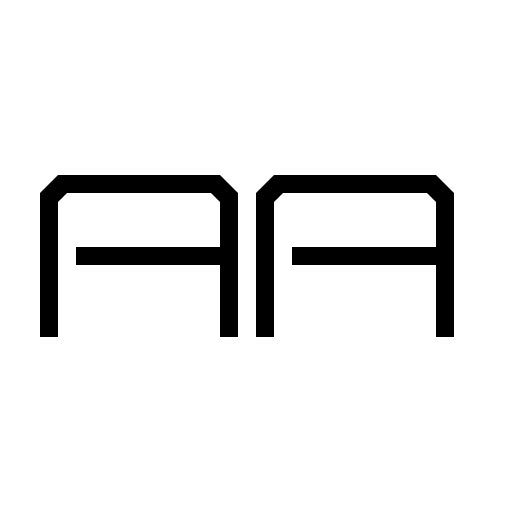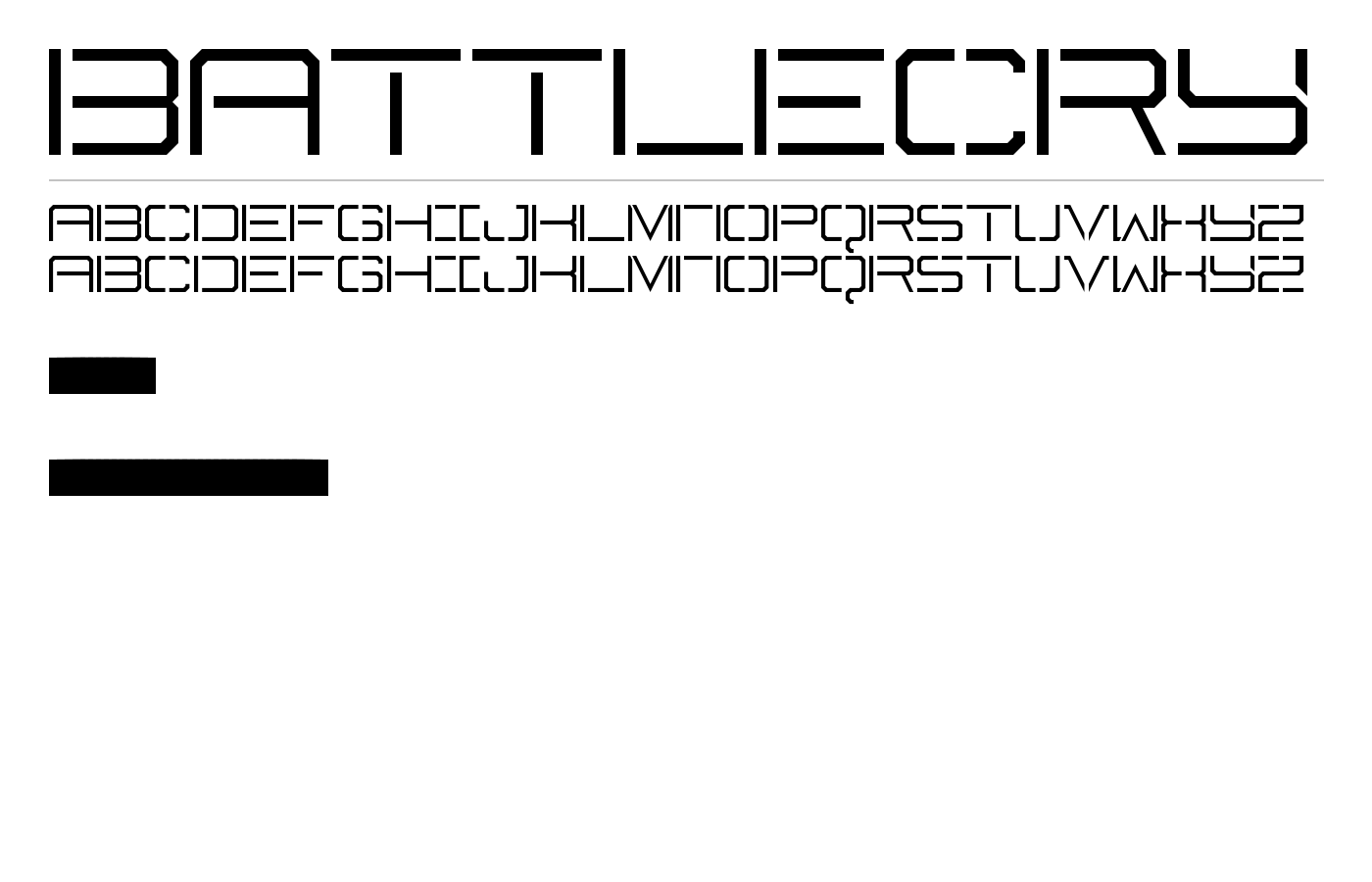
Battlecry Font is a sleek, geometric sans serif typeface with a futuristic and tech-inspired vibe. Its sharp, angular lines and uniform stroke weight give it a modern, industrial look, making it ideal for bold headlines, logos, and branding in gaming, technology, or sci-fi themes. This font stands out for its clean, structured character shapes that convey strength and precision.
Battlecry Font
About Battlecry Font